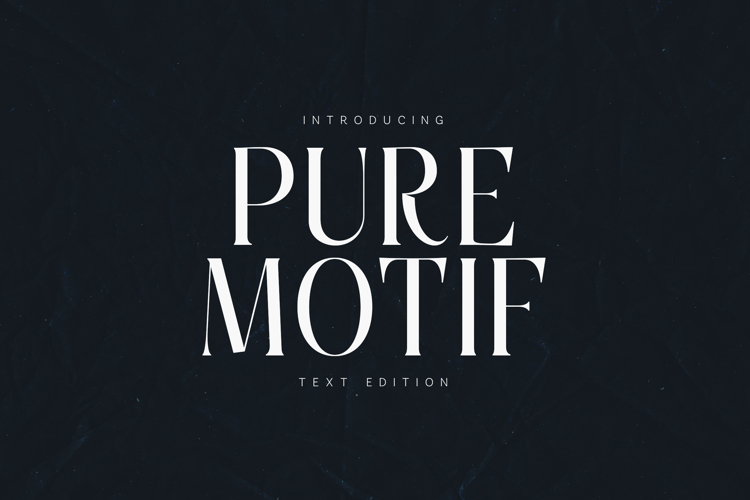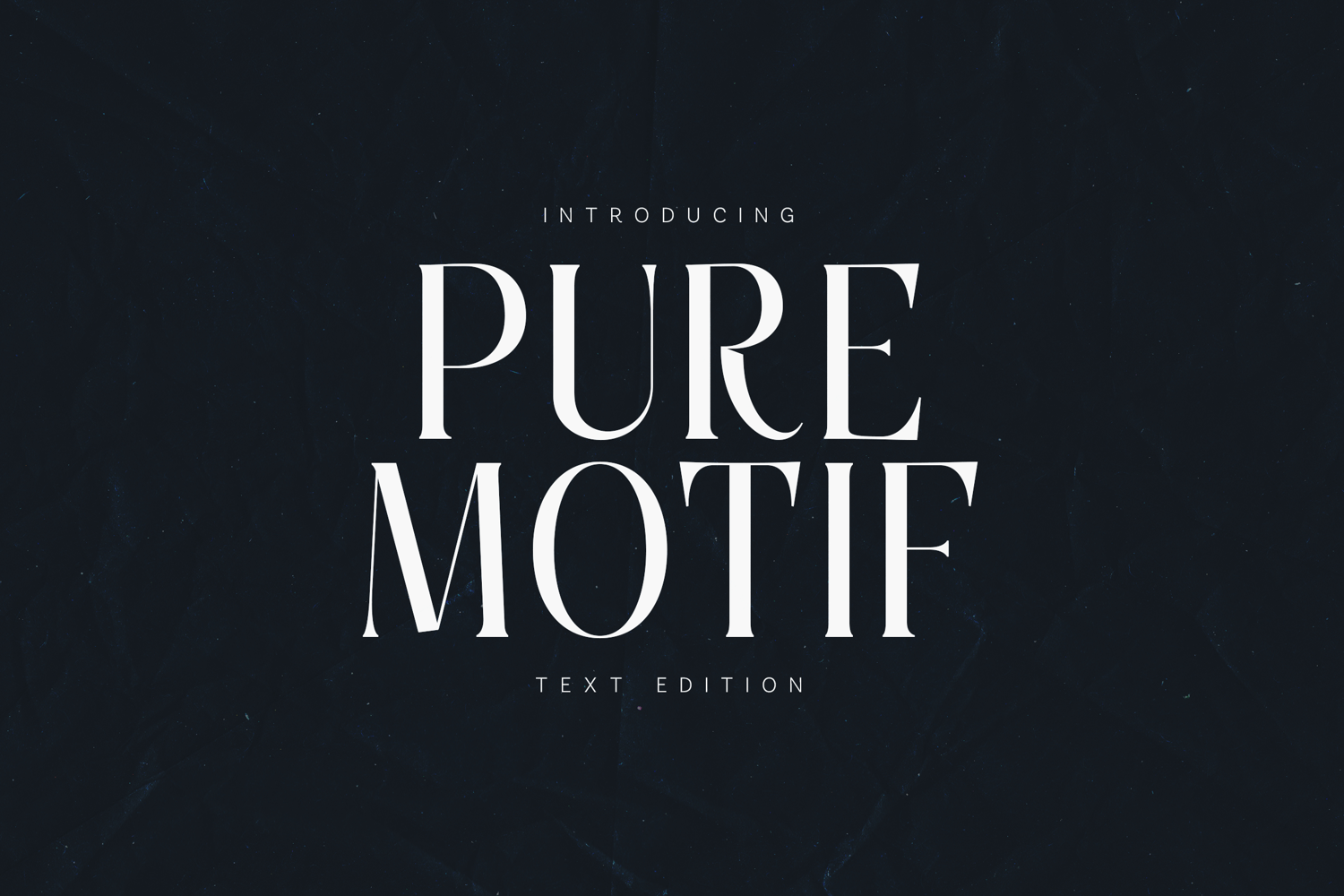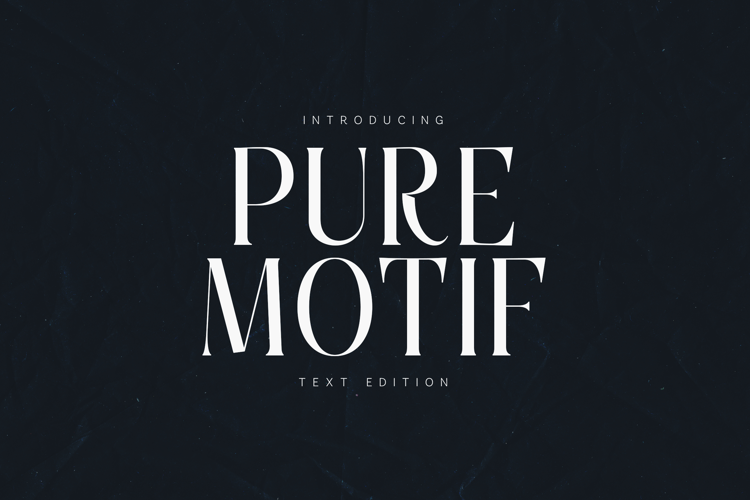
Pure Motif Elegant Serif Text Font
Pure Motif – Text Edition is a refined serif font designed for clarity, elegance, and long-form readability. With balanced proportions, soft contrast, and carefully shaped serifs, this typeface delivers a calm, literary feel that works beautifully across both print and digital text environments.
Built for editorial and brand-driven design, Pure Motif is ideal for magazines, books, websites, branding systems, packaging, essays, articles, luxury identities, and sophisticated layouts that require consistency and comfort over extended reading. Its understated character allows content to shine while maintaining a timeless, premium tone.
Pure Motif – Text Edition is crafted for designers who value precision, elegance, and typographic longevity—where form serves meaning with quiet confidence.